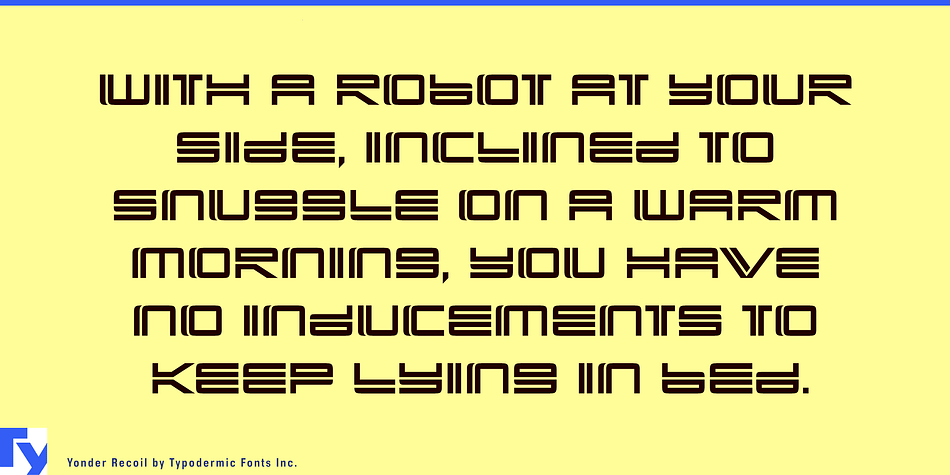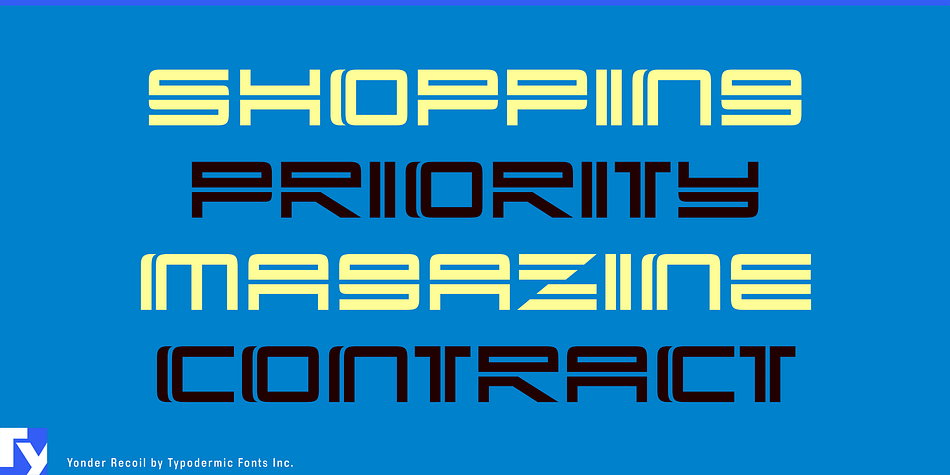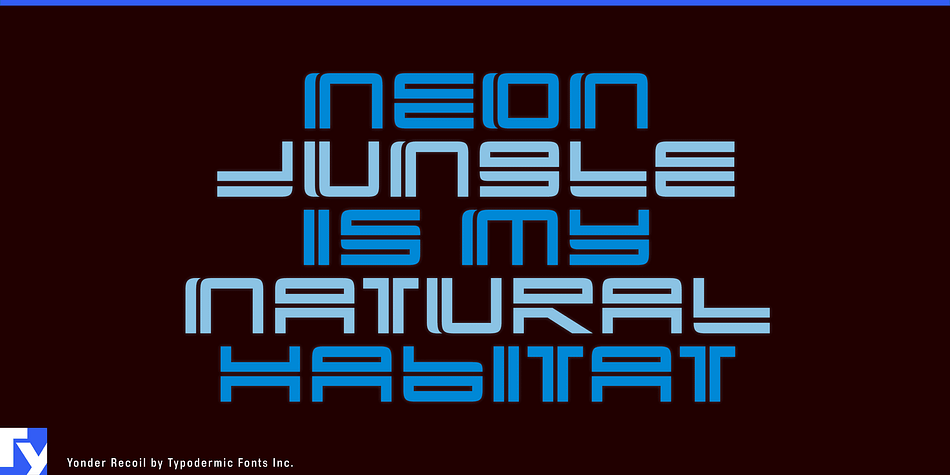
Yonder Recoil is a display sans font published by Typodermic Fonts Inc.
Yonder Recoil is a speedy techno font with a eye on the future and another eye on the near present.